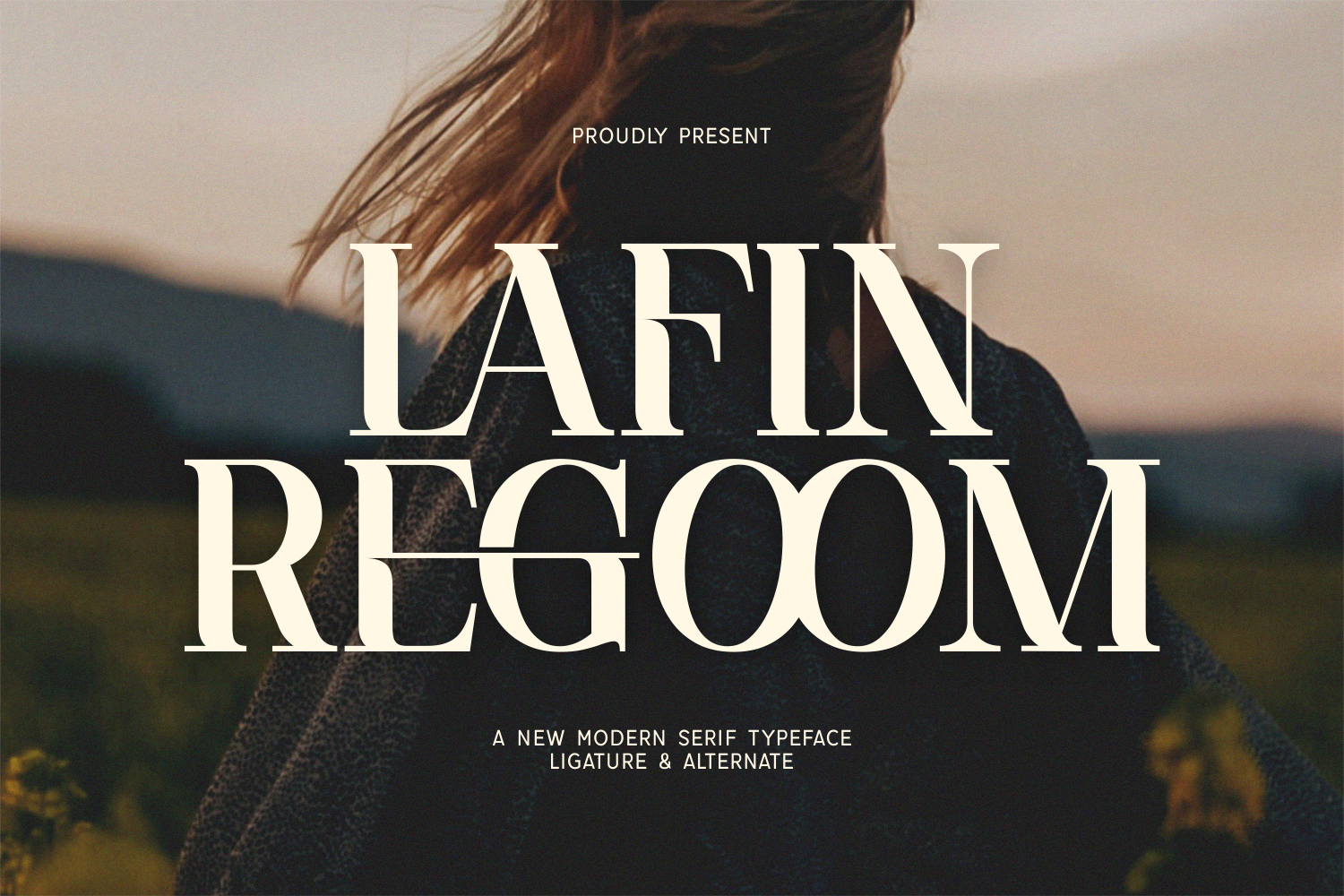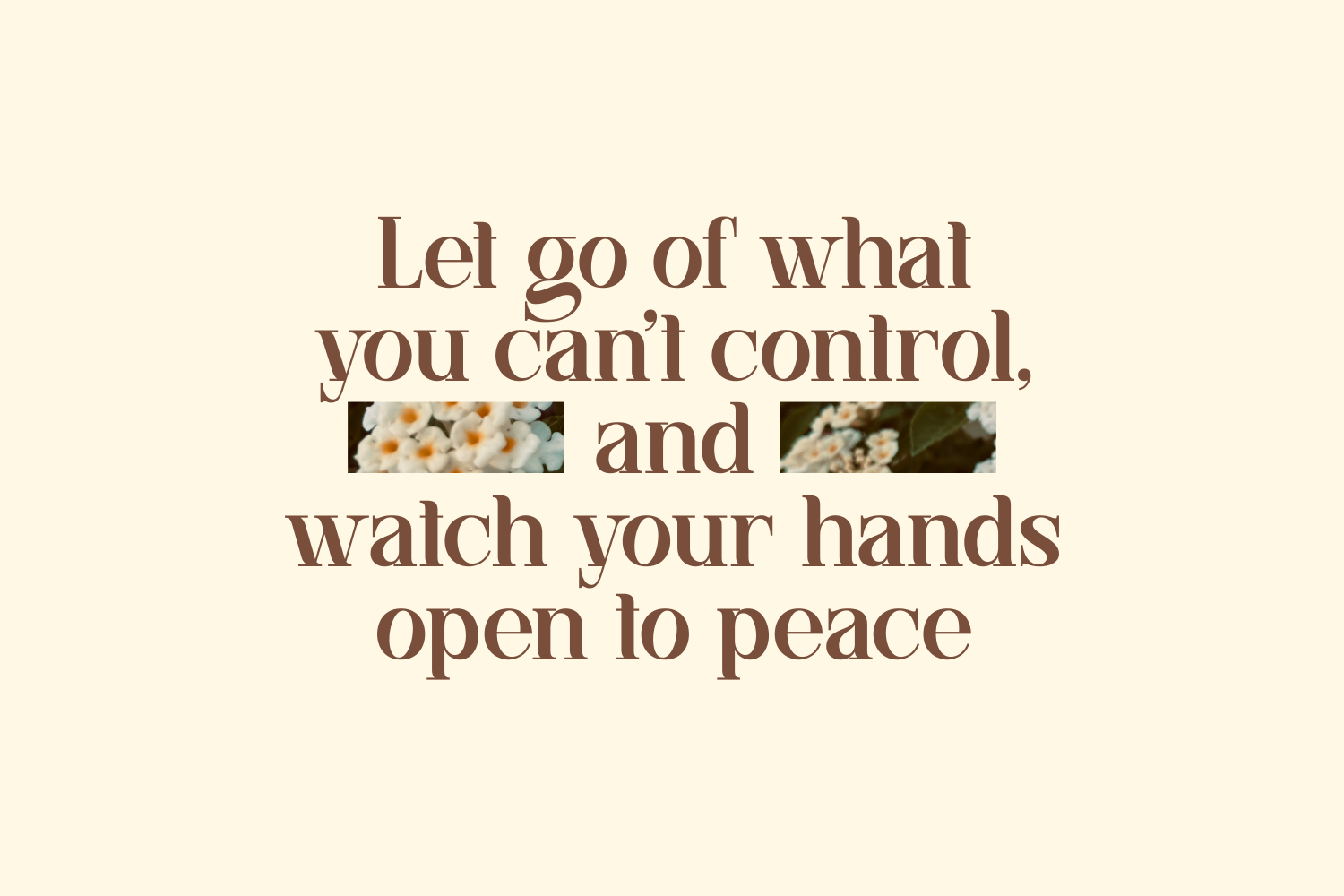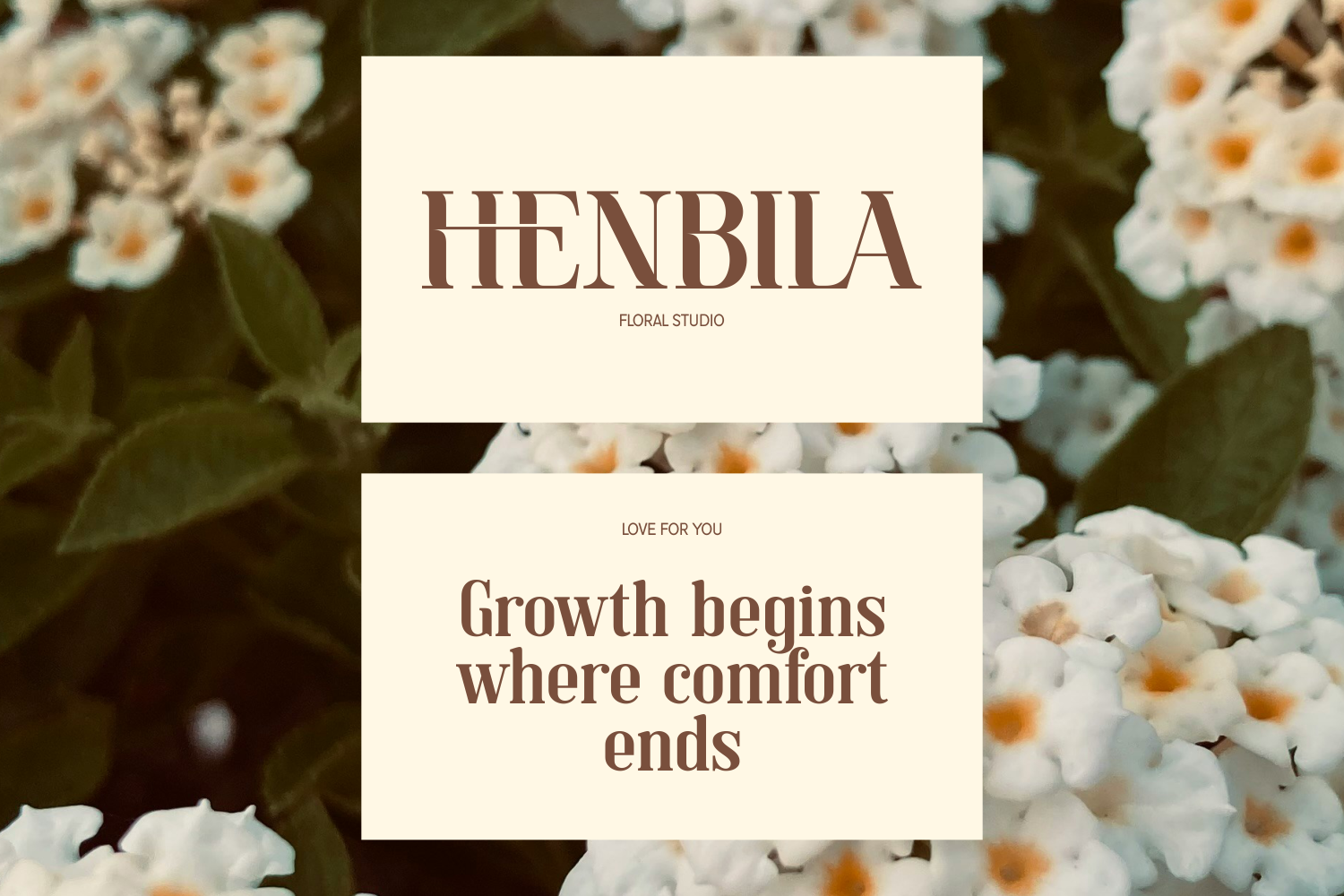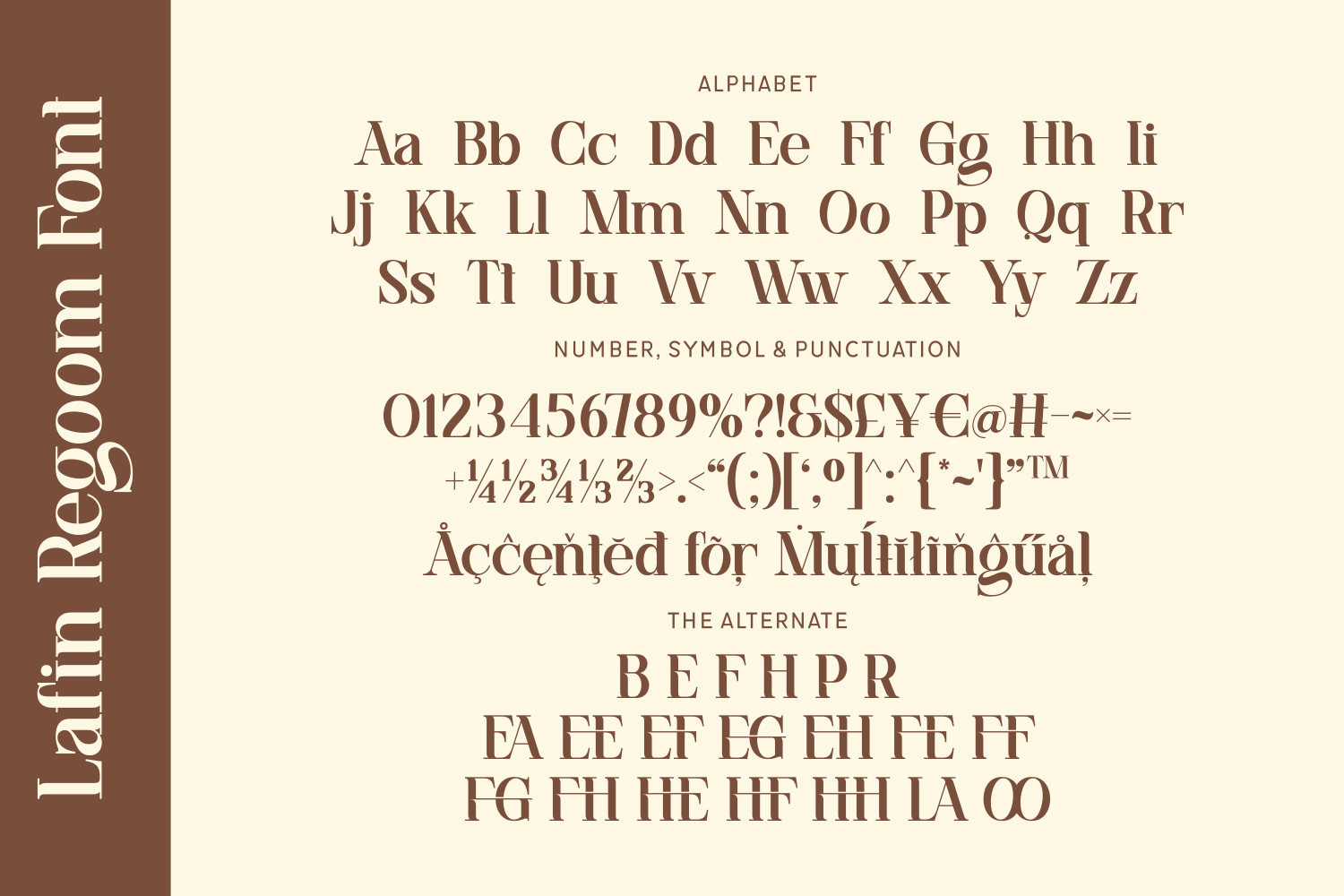
Lafin Regoom is a stylish and expressive modern serif typeface that blends classic elegance with bold contemporary flair. The unique alternates add a designer edge, while multilingual support ensures versatility across global markets. Lafin Regoom turns typography into a statement—refined, distinctive, and unforgettable.